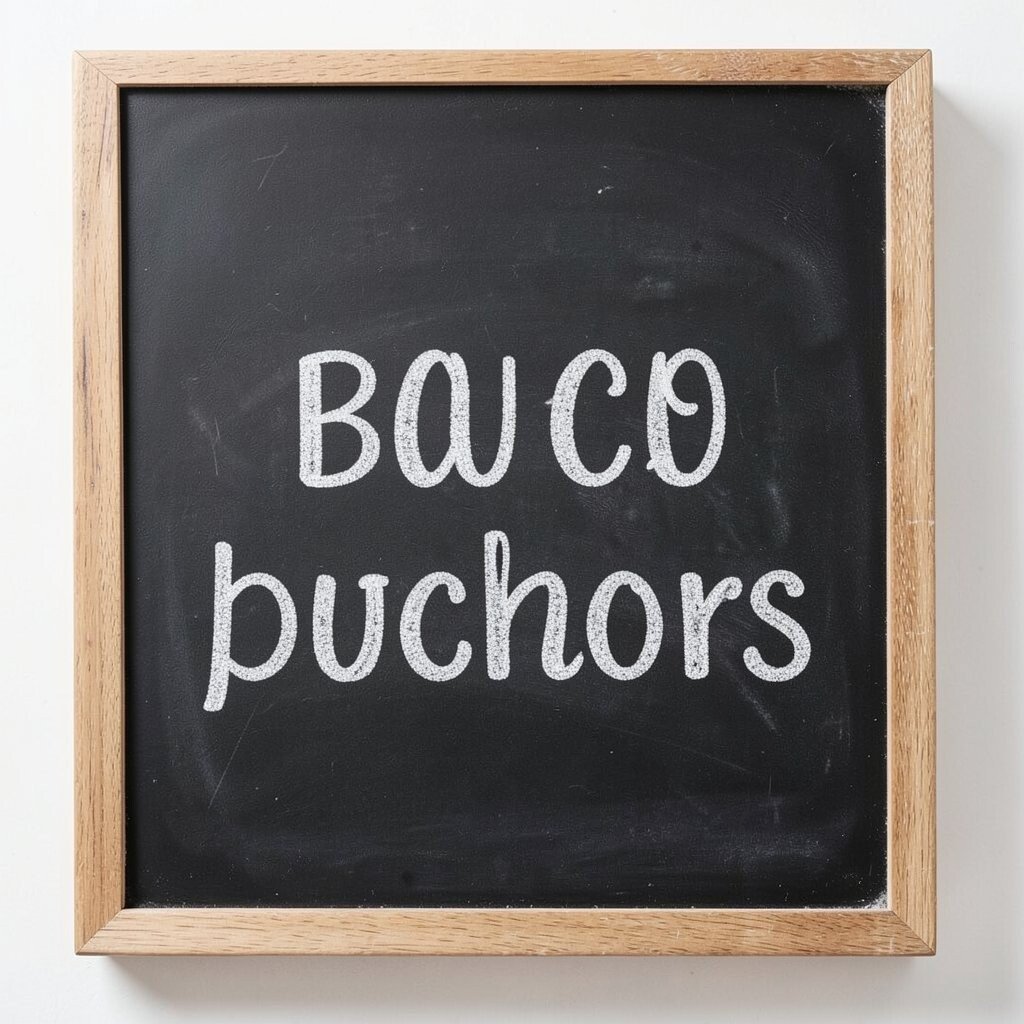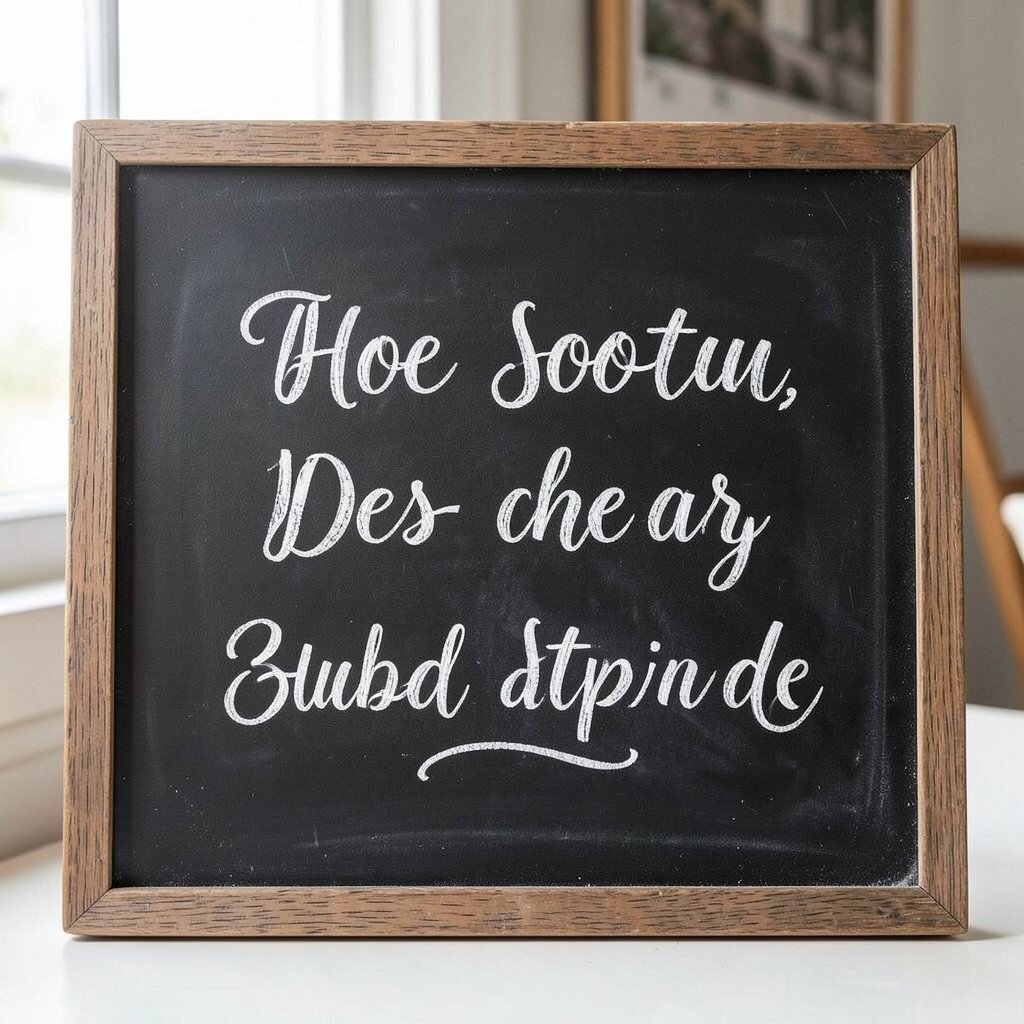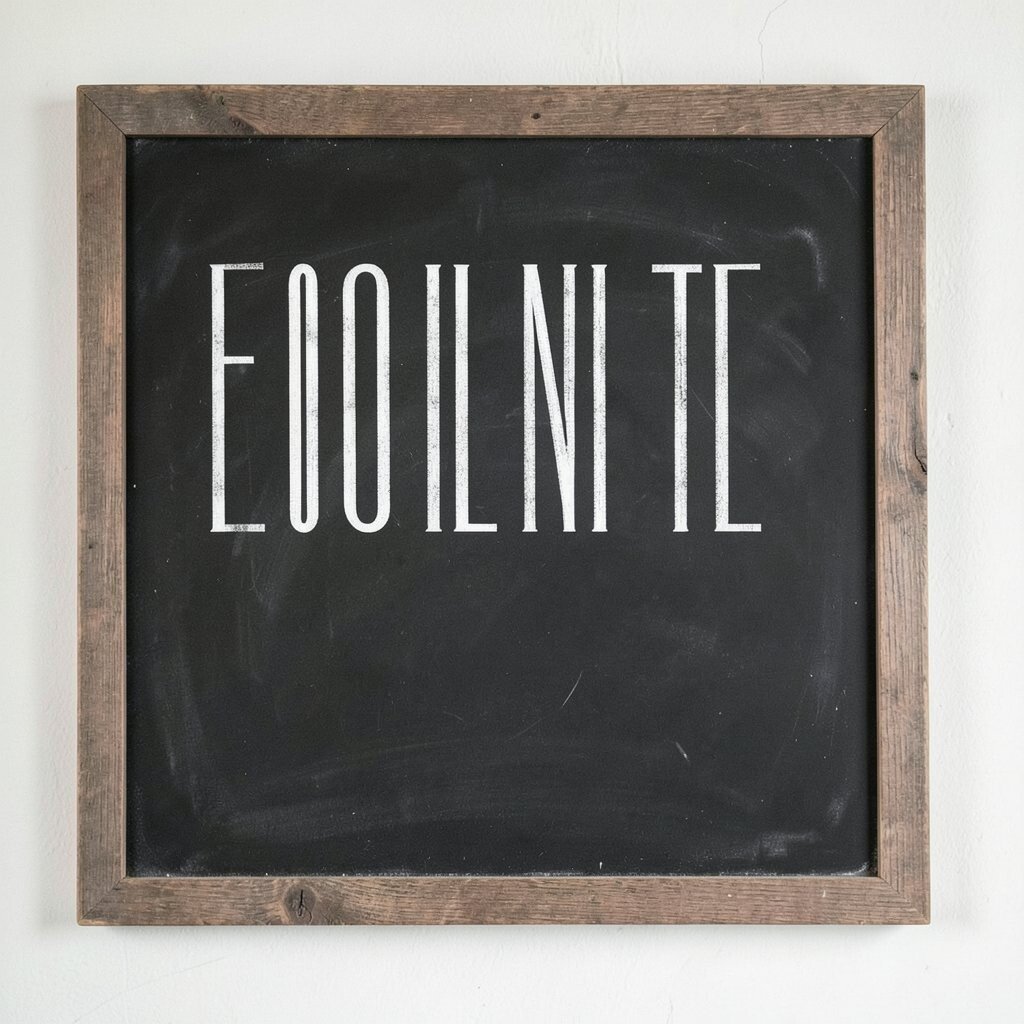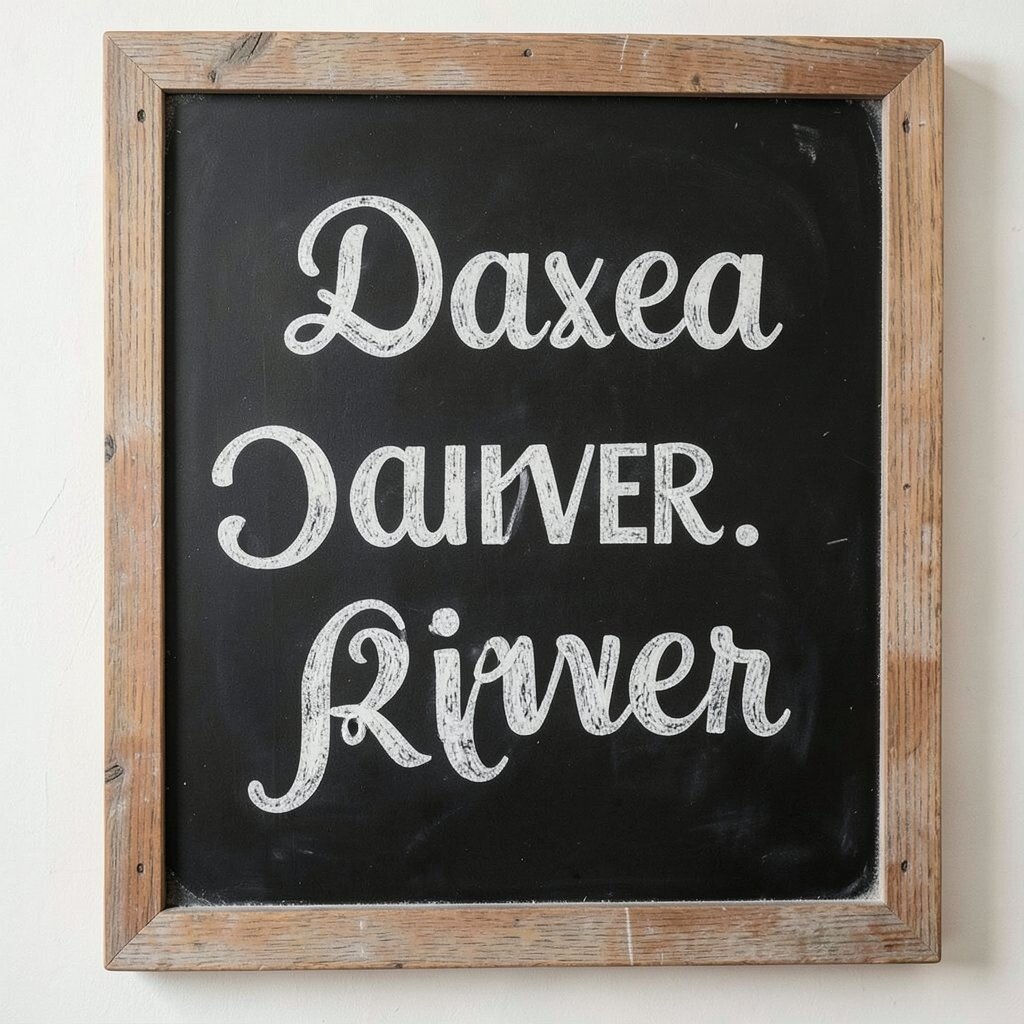
Chalkboard signs can stop people in their tracks. The right font gives them charm and energy.
Some fonts feel playful, while others feel cozy or bold. A smart choice can make a menu, welcome sign, or event board look polished without much extra cost.
1. Handwritten Script
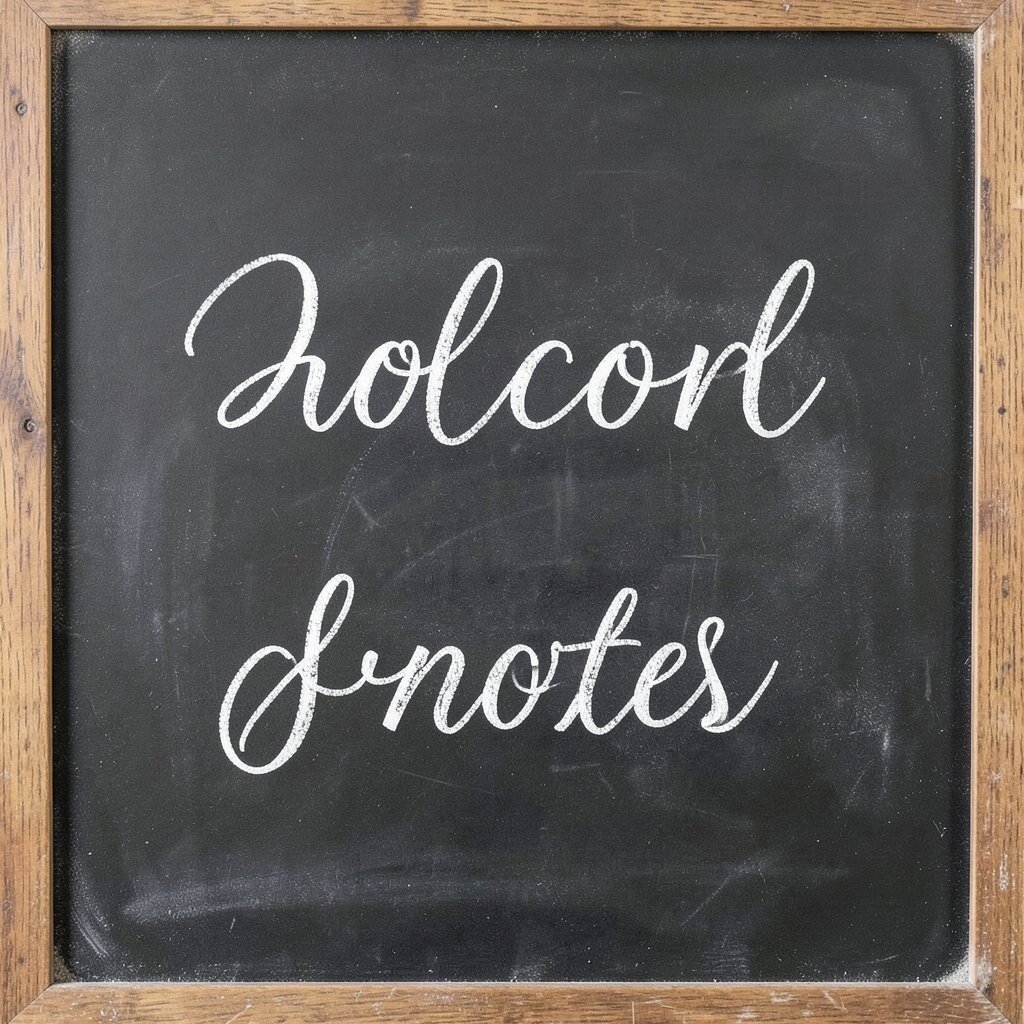
Handwritten script fonts bring a soft, flowing look that feels warm and personal. They work well when you want a sign to feel like it was made by hand, even if it was printed or traced first.
This style looks lovely on wedding boards, café specials, and gift shop signs. It adds a gentle touch and pairs well with simple drawings like hearts, leaves, or swirls.
2. Bold Block Letters
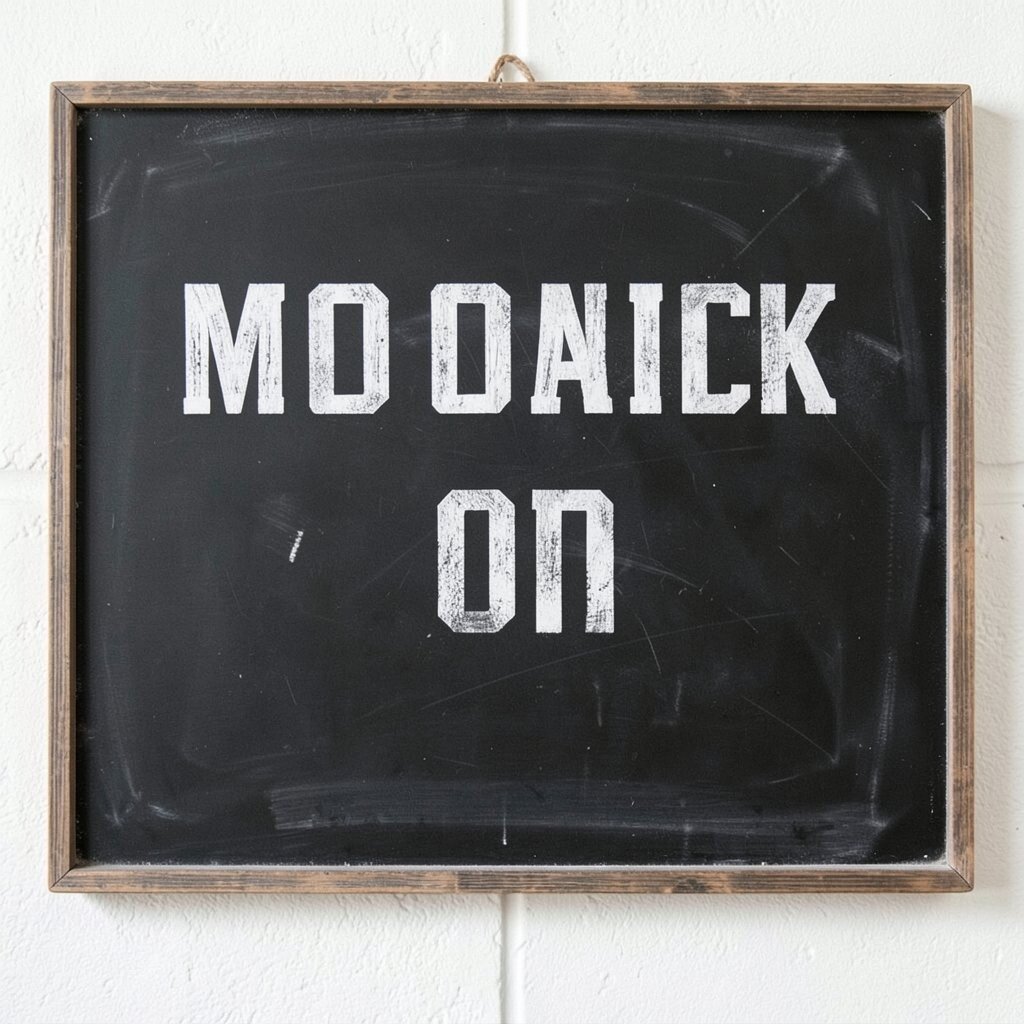
Bold block letters are easy to read from far away, which makes them great for busy spaces. They stand out on dark boards and give your message a clean, strong shape.
These fonts are a smart pick for sales, directions, and daily specials. They also keep costs low because you can use fewer extra decorations and still make a big impact.
If you want a more personal feel, mix block letters with a hand-drawn border or a small doodle. This style fits modern trends that favor simple, clear signs with a neat finish.
3. Rustic Serif
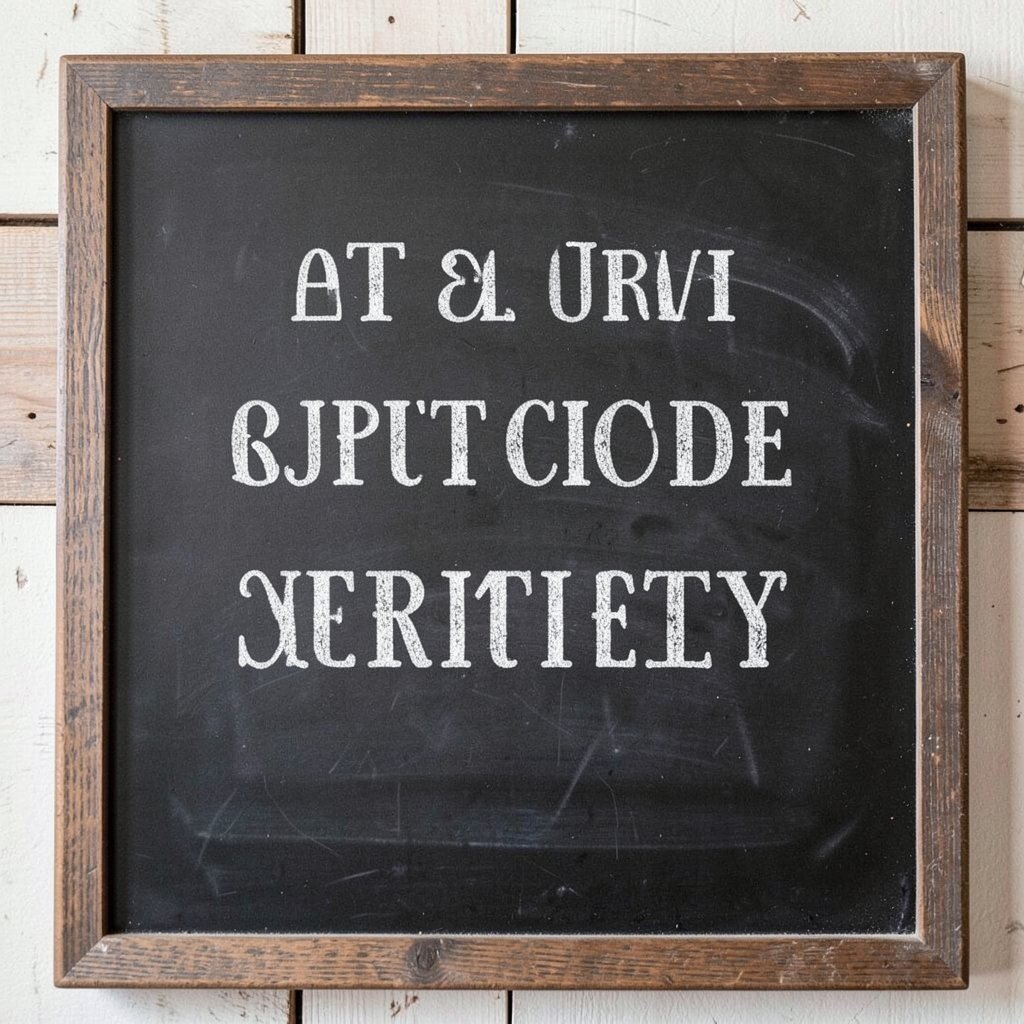
Rustic serif fonts have little feet on the letters, which gives them a classic and cozy look. They can make a sign feel old-fashioned in a good way, like a country market board or a vintage café menu.
These fonts are useful when you want charm without too much fuss. They look nice with cream chalk, tan markers, or a few faded accents.
Try using rustic serif fonts for bakery displays, farm stands, or seasonal promotions. You can personalize them with hand-drawn wheat, flowers, or ribbon lines for a homey style.
They are also a good choice if you want a font that feels timeless instead of trendy. Because they stay readable and steady, they work well for signs that need to last for many uses.
4. Playful Bubble Letters
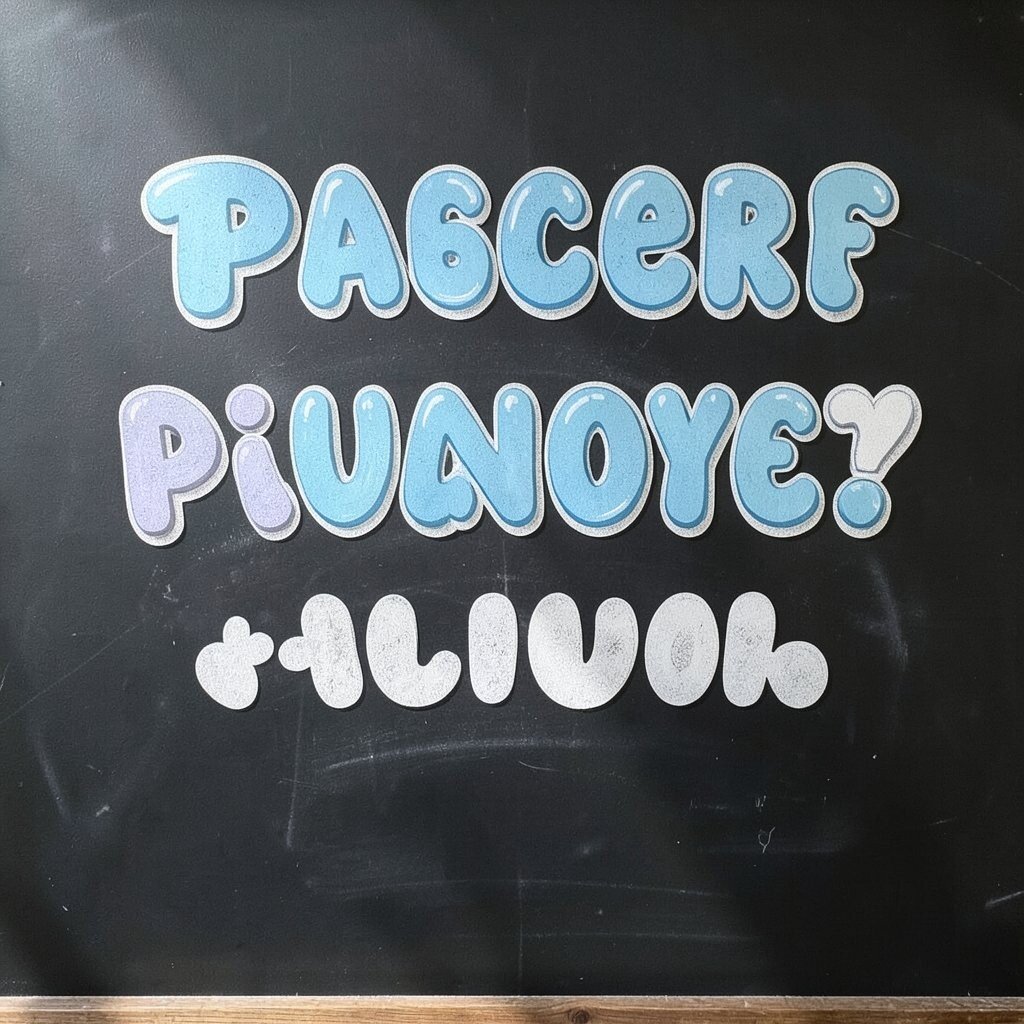
Playful bubble letters feel cheerful and full of motion. Their round shapes can make a sign seem friendly, fun, and perfect for kids or party spaces.
They are great for birthday boards, ice cream shops, and classroom signs. A bright outline or shadow can make them pop even more.
5. Thin Modern Sans
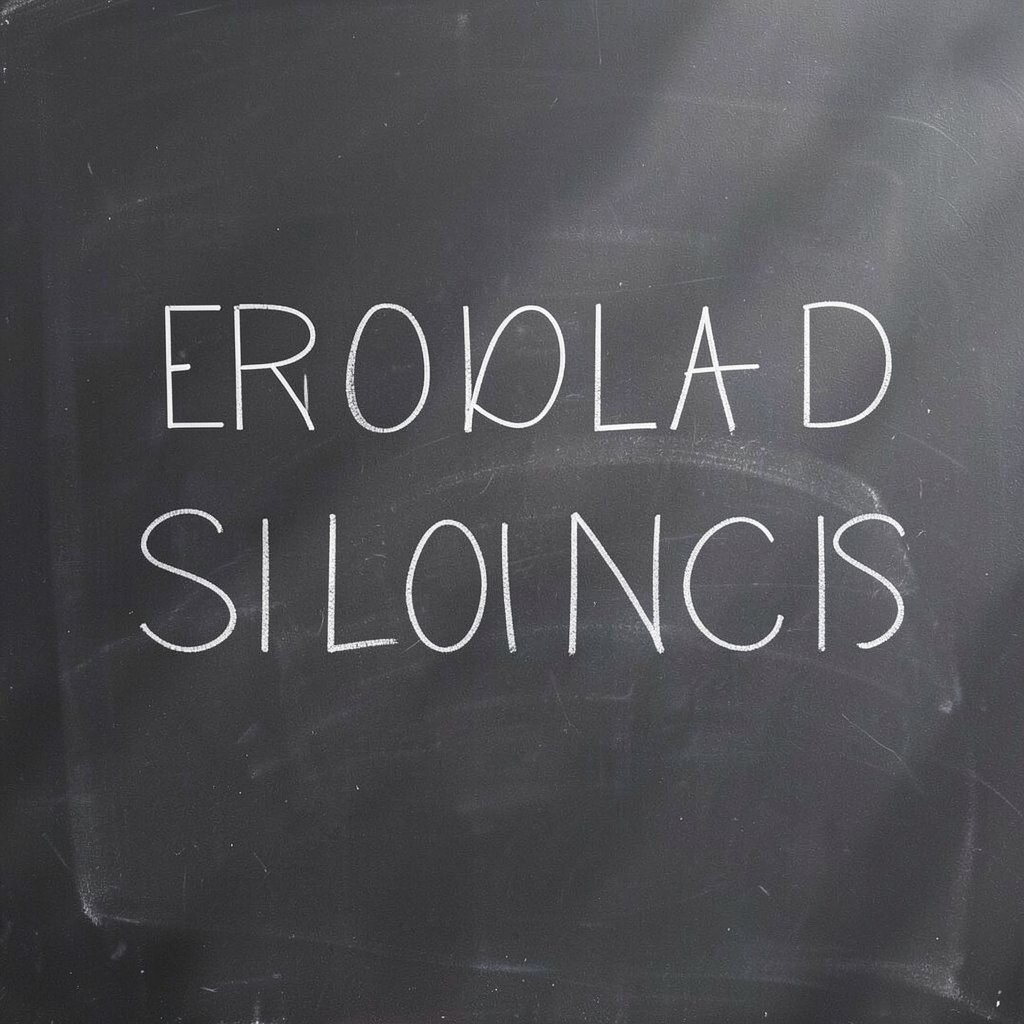
Thin modern sans fonts look neat and stylish, with a light touch that feels fresh. They are perfect when you want a sign to feel clean and current without looking too plain.
These fonts work well on boutique boards, home décor signs, and event displays. They also save space, which helps when your message has many words.
To make them stand out, use thick chalk lines around the edges or add a small frame. This is a smart option if you want a polished look while keeping supplies simple and low cost.
6. Vintage Western
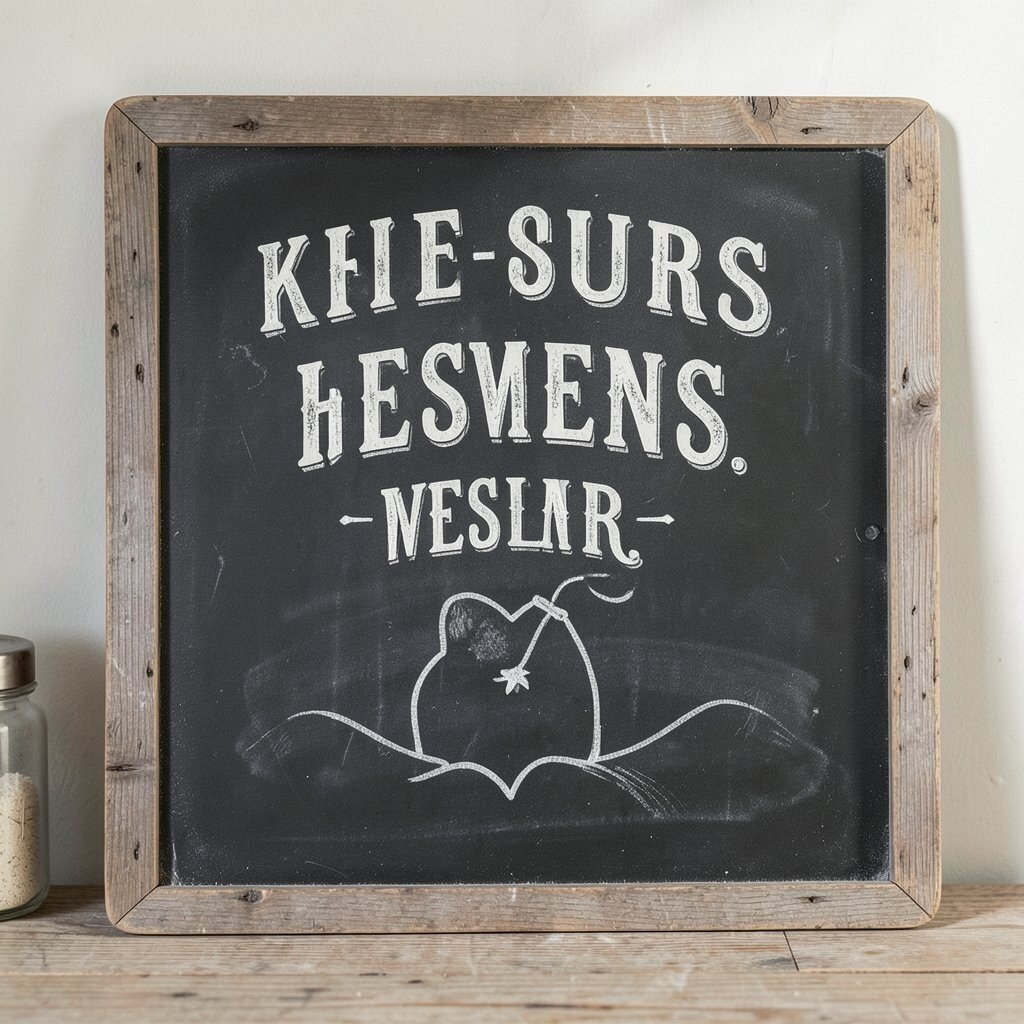
These fonts are great for market boards, classroom messages, and creative studio signs. They help your words stand out while keeping a casual chalkboard feel.
You can make them your own by changing the size of key words or adding a few uneven strokes. That handmade look is part of the charm, and it is one reason people keep using it for trendy social media photos and shop displays.
If you are watching your budget, this style is helpful because small imperfections can look intentional. A little wobble can add character, so the sign feels unique instead of stiff.